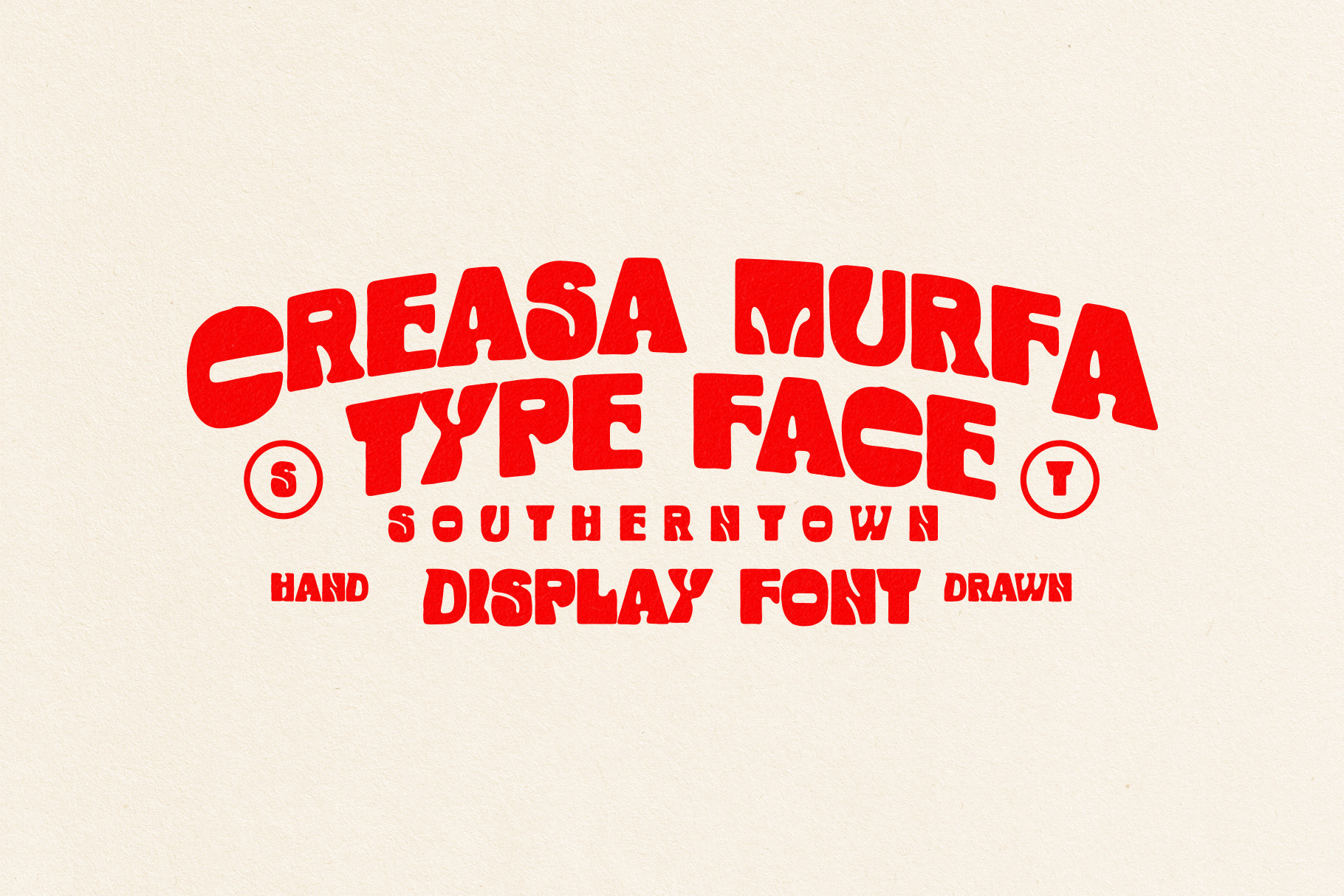
Creasa Murfa - Typeface
Creasa Murfa – Hand-Drawn Psychedelic Display Font
Creasa Murfa is a hand-drawn display font that blends the retro psychedelic style of the 60s and 70s with a unique, playful and organic touch. Its bold, curved, and dynamic letterforms make it a standout for designs that want to be bold and full of character.
Full capital letters (A–Z)
Numbers 0–9
Basic symbols and punctuation
Handcrafted style with asymmetrical shapes for an authentic vintage feel
Suitable for concert posters, album covers, festival designs, creative logos, apparel, packaging, and branding projects with a retro or groovy theme